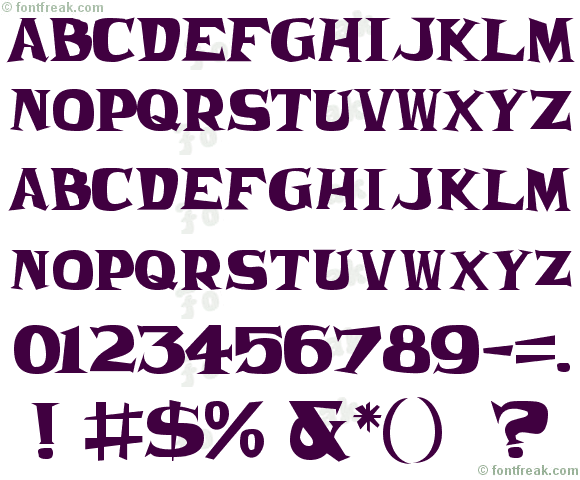
Frantic JL
About Frantic
Introducing the Frantic font by Jeff Levine, a unique decorative typeface that captures attention with its playful yet chaotic aesthetic. Created in 1997, this freeware font embodies a lively spirit, making it perfect for projects that require a touch of whimsy. The Frantic font is characterized by its bold strokes and irregular shapes, lending a sense of movement and energy to any design. The contrast is noticeable, with thick and thin lines that create a dynamic visual rhythm. The spacing is tight, enhancing the font's frantic vibe and making it ideal for expressive headlines and titles.
The Frantic font is particularly well-suited for a variety of creative applications. It shines in contexts such as movie posters, where its energetic style can draw in viewers and set the tone for the film. Additionally, it works wonderfully for children's event invitations, as its playful nature resonates well with younger audiences. Graphic designers may find it an excellent fit for album covers, where the font's vibrant personality can convey the essence of the music. Restaurant menus can also benefit from the Frantic font, especially for eateries looking to express a fun and unconventional dining experience.
Targeting graphic designers, small business owners, and content creators, the Frantic font offers a distinctive option for those looking to make a statement. Its unique design elements allow for creative freedom while ensuring that the message remains clear and captivating. The Frantic font free download is an opportunity not to be missed, as it adds a touch of character to a wide range of projects. Its standout features make it a memorable choice that can elevate any design, ensuring that your work stands out in a crowded marketplace.